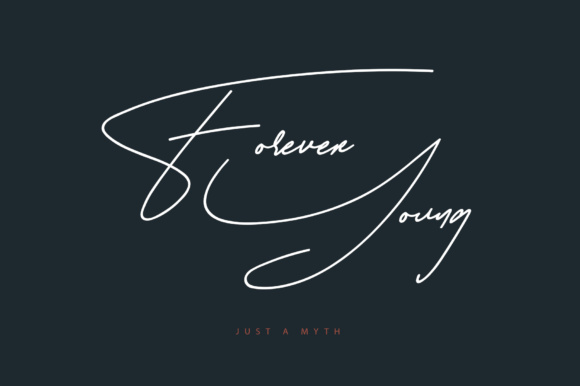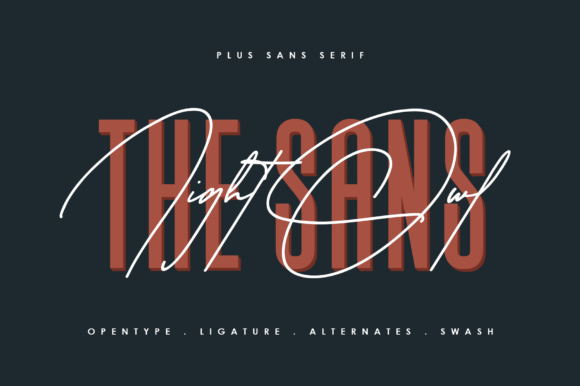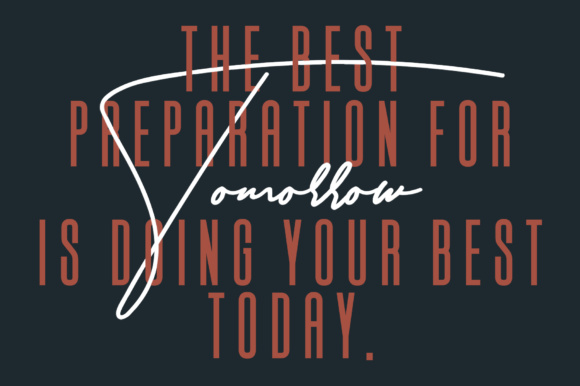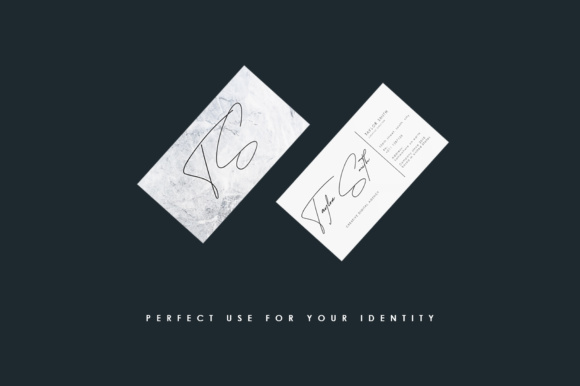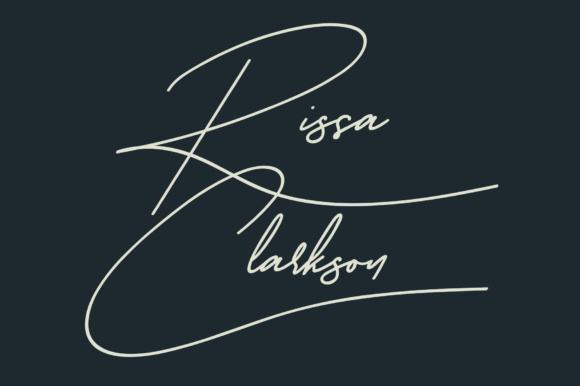
Introducing Amstonia Font: Elevate Your Designs with a Handcrafted Touch
Are you tired of using generic, overused fonts in your designs? Do you want to add a personal touch that sets your work apart? Look no further than Amstonia Font, a beautifully crafted typeface that brings an authentic, handcrafted feel to your creations. In this article, we’ll explore the features and benefits of Amstonia Font, and how it can elevate your designs to the next level.
The Amstonia Font Family
Amstonia Font comes in two stunning versions: a sans and a signature version. Both styles are perfectly suited for a wide range of design applications, including signatures, stationery, logos, typography quotes, magazine or book covers, and more. The sans version offers a clean and modern aesthetic, while the signature version adds a touch of elegance and sophistication.
What Sets Amstonia Font Apart
So, what makes Amstonia Font so special? Here are just a few features that set it apart from other fonts on the market:
• Handcrafted feel: Amstonia Font is designed to mimic the look and feel of handcrafted typography. Each letter is carefully crafted to create a sense of warmth and personality.
• Unique character set: Amstonia Font includes a wide range of characters, ensuring that you have everything you need to create stunning designs.
• Versatile: Whether you’re designing a logo, brochure, or social media graphic, Amstonia Font is the perfect choice.
• Easy to read: Despite its handcrafted feel, Amstonia Font is incredibly easy to read, making it perfect for body text and headings.
Design Applications for Amstonia Font
Amstonia Font is incredibly versatile, and can be used in a wide range of design applications. Here are just a few ideas to get you started:
• Signatures: Add a personal touch to your signatures with Amstonia Font’s elegant signature version.
• Stationery: Create beautiful stationery sets, including letterheads, business cards, and envelopes.
• Logos: Use Amstonia Font to create unique and memorable logos that stand out from the crowd.
• Typography quotes: Create stunning typography quotes that showcase Amstonia Font’s beautiful lettering.
• Magazine or book covers: Use Amstonia Font to create eye-catching magazine or book covers that grab attention.
Tips for Using Amstonia Font
Here are a few tips for getting the most out of Amstonia Font:
• Experiment with different sizes: Amstonia Font looks great in a wide range of sizes, from small body text to large headings.
• Play with color: Amstonia Font comes in a range of colors, so don’t be afraid to experiment and find the perfect hue for your design.
• Mix and match: Try combining Amstonia Font with other fonts to create a unique and eye-catching design.
In conclusion, Amstonia Font is a beautifully crafted typeface that brings an authentic, handcrafted feel to your designs. With its two stunning versions, versatile design applications, and easy-to-read character set, Amstonia Font is the perfect choice for designers and crafters looking to elevate their work. So why wait? Download Amstonia Font today and start creating stunning designs that stand out from the crowd!